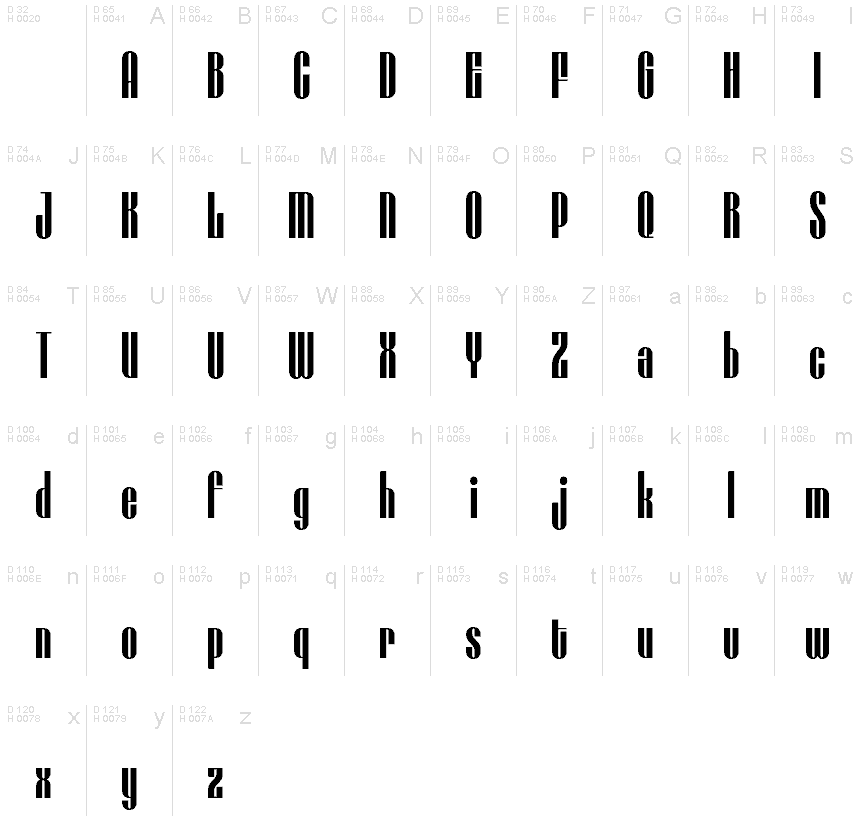
CS Costanza Regular Demo
CS Costanza font by Craft Supply Co. is an elegant sans serif font that is condensed and features dramatic high-contrast strokes. Traditional with a stylish edge, this display typeface still manages to be readable with its distinct yet simple characters.
Add this refined yet free font to modern websites, packaging projects, posters, social media covers and stories, blog headers, advertisements, branding and visual identities designs.